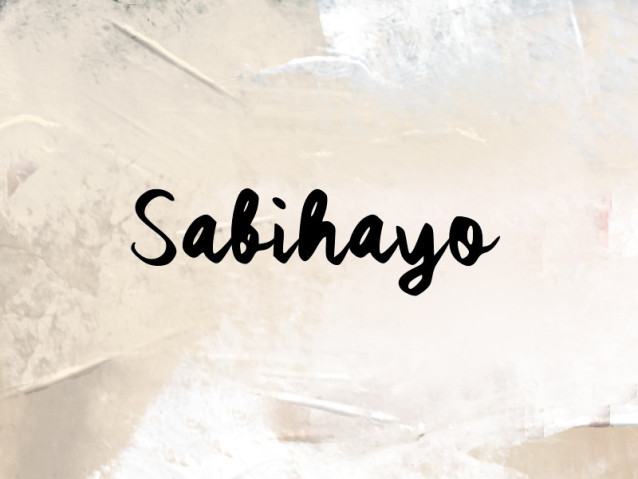
Sabihayo Font
Sabihayo Font is a simple and friendly handwritten font. Its natural and unique style makes it incredibly fitting to a large pool of designs. The only limit is your imagination!